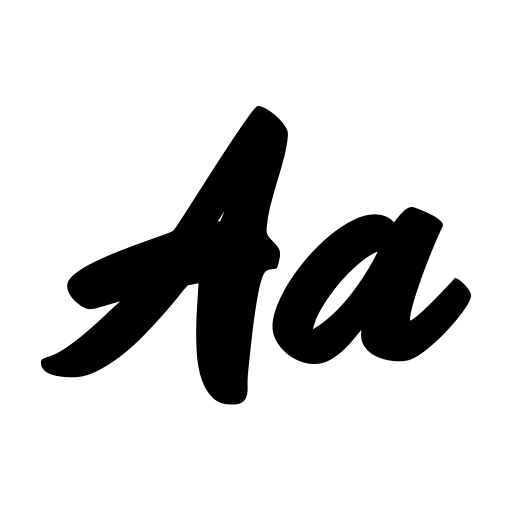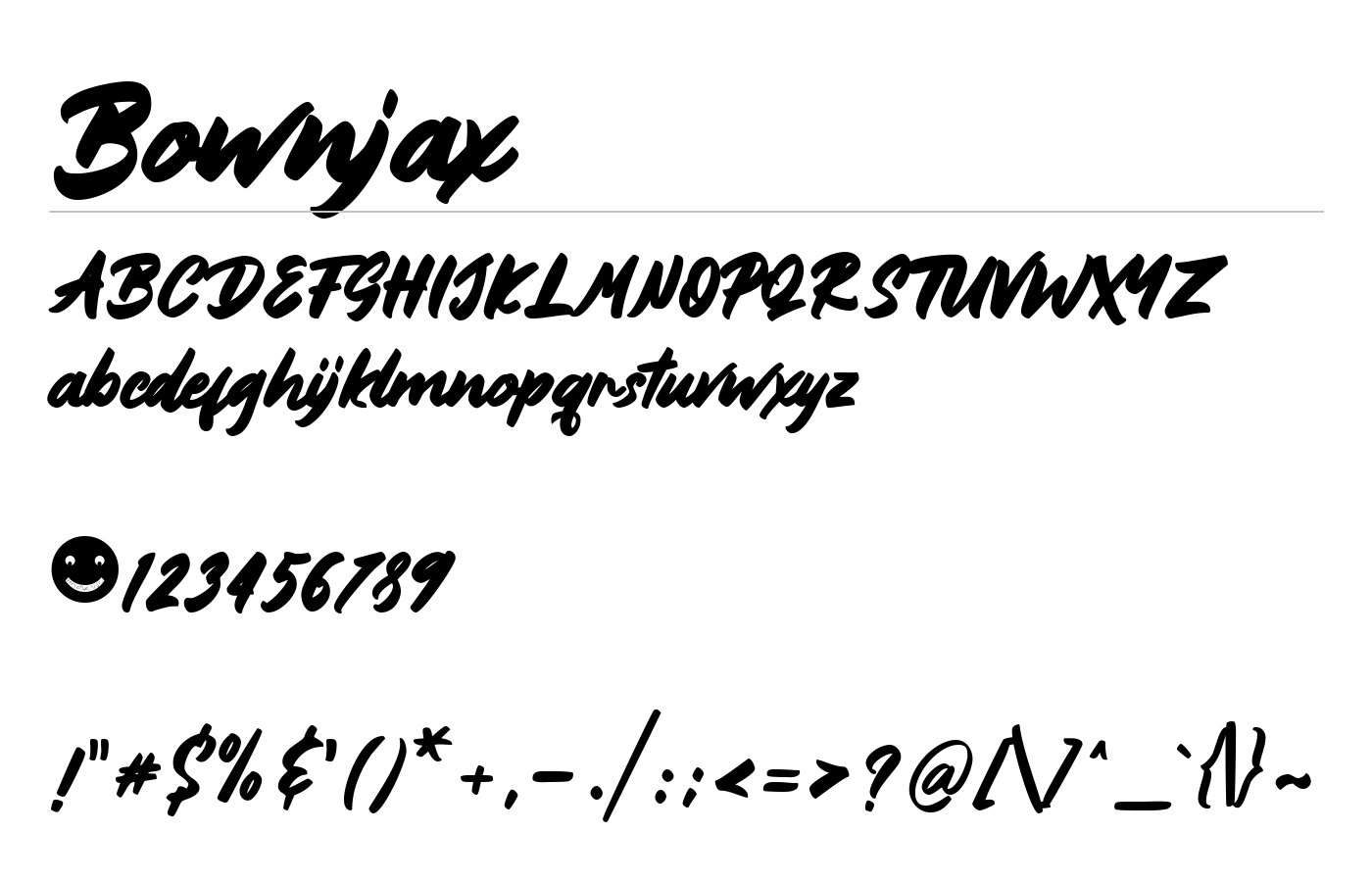
Bownjax is a bold, lively script font that captures a sense of energetic, hand-drawn style with its smooth, flowing strokes and casual brush-like texture. Its design combines a thick weight with a slightly condensed width and playful curves, making it perfect for adding a personal, approachable touch to logos, headlines, and creative projects where a dynamic, informal look is desired. This font works well for brands and designs that want to convey friendliness, creativity, and movement.
Bownjax Font
About Bownjax Font
| Font family | Bownjax Font |
| Designer | Rachma |